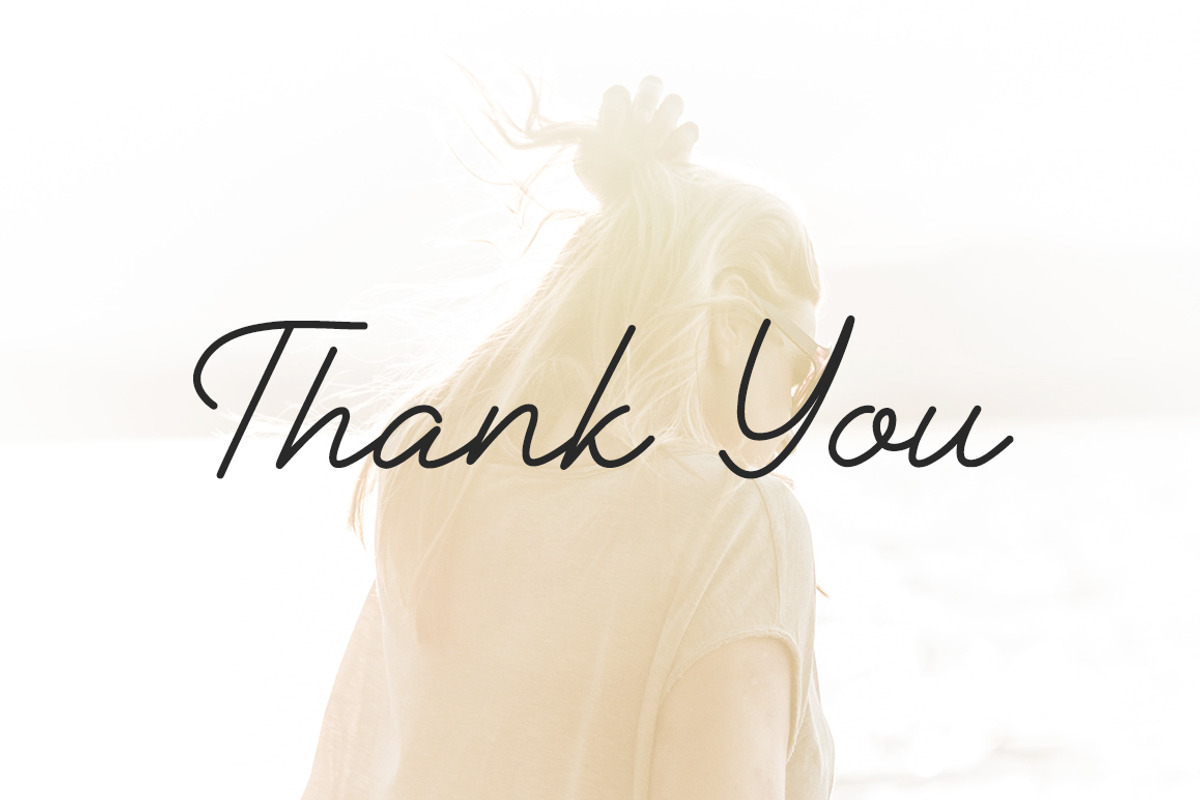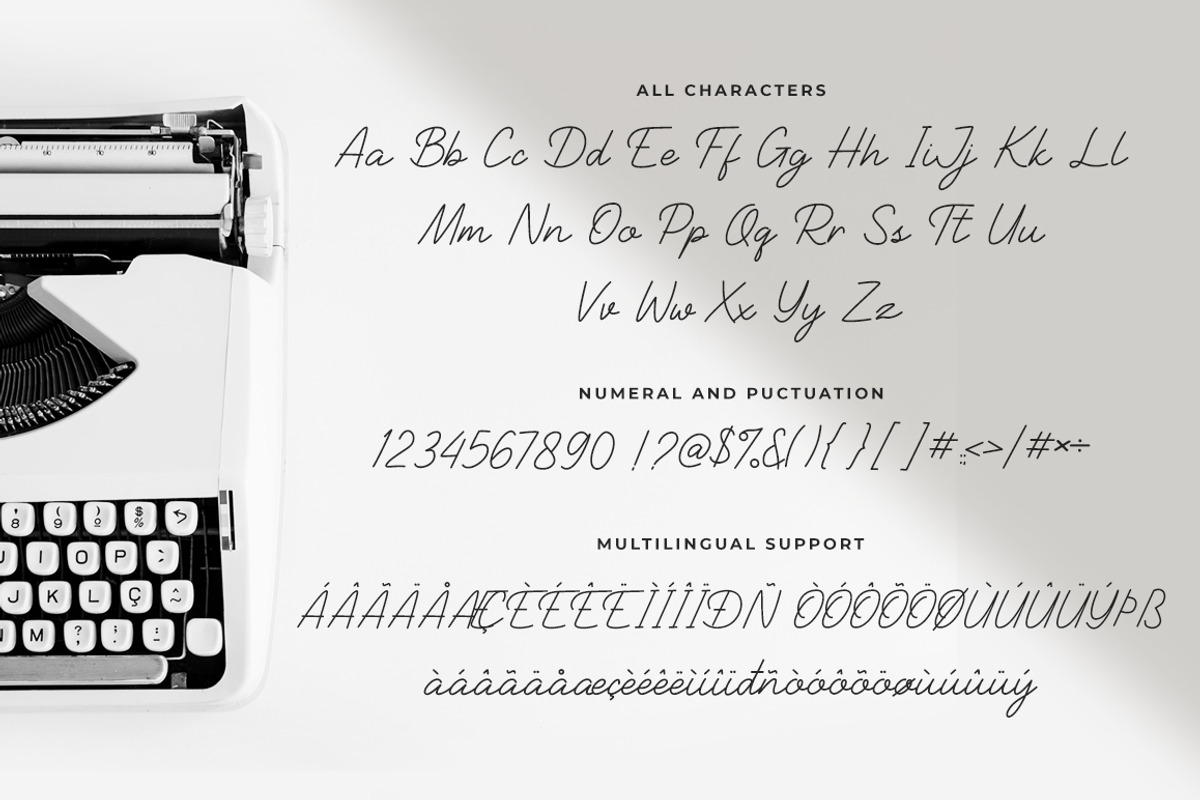
Stanford - Monoline Signature
Stanford is a modern and fresh script font. It features a natural and elegant feel that make it perfect for crafting projects that need a handwriting style.